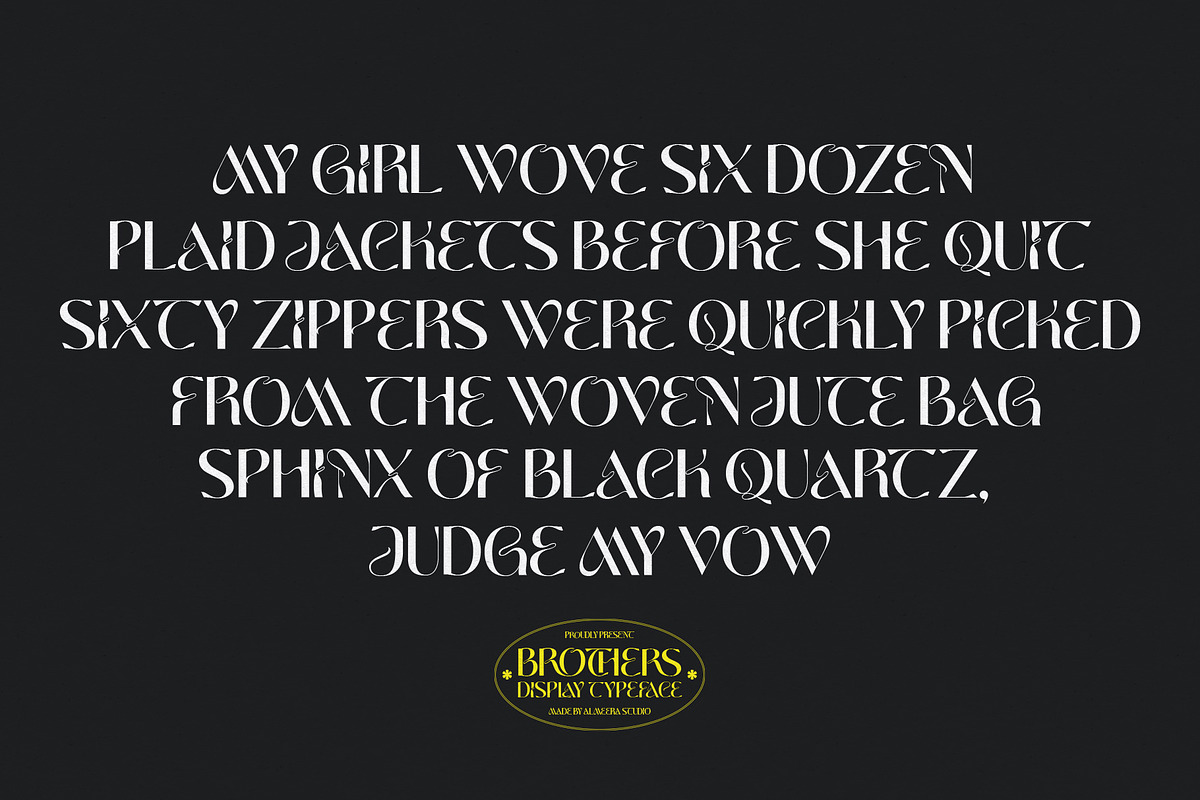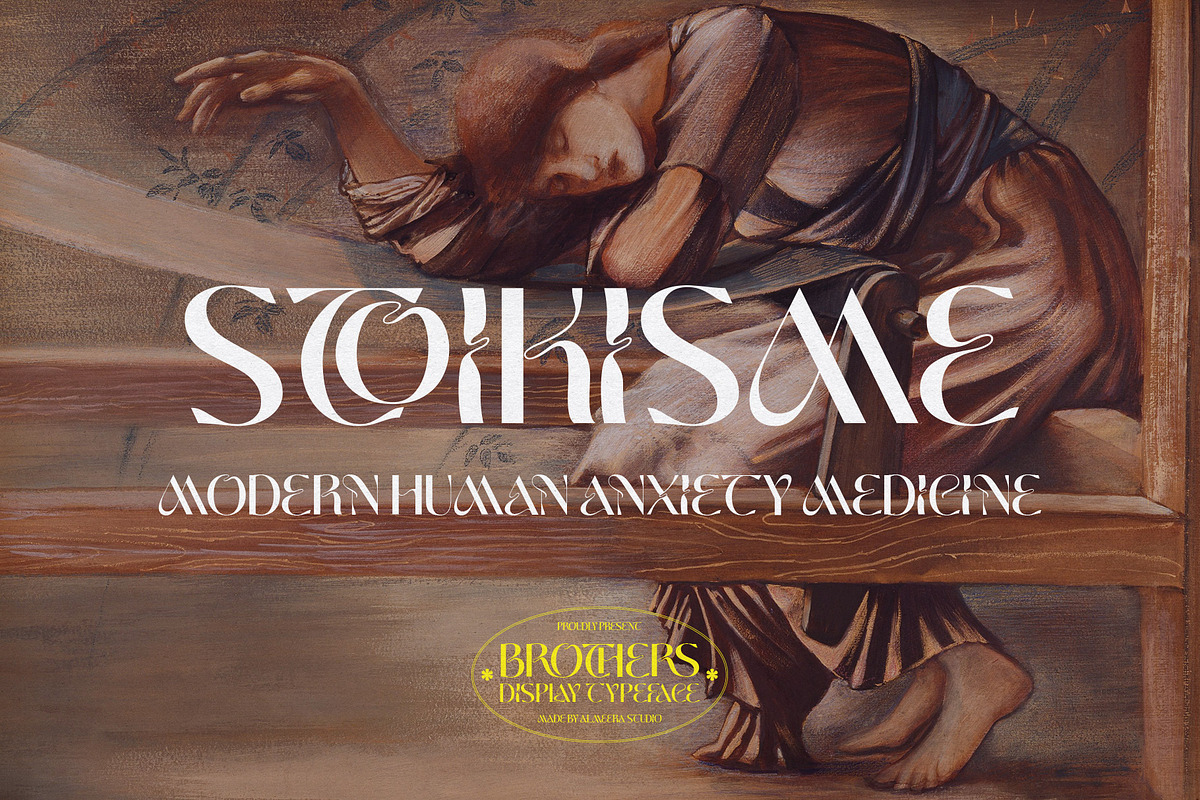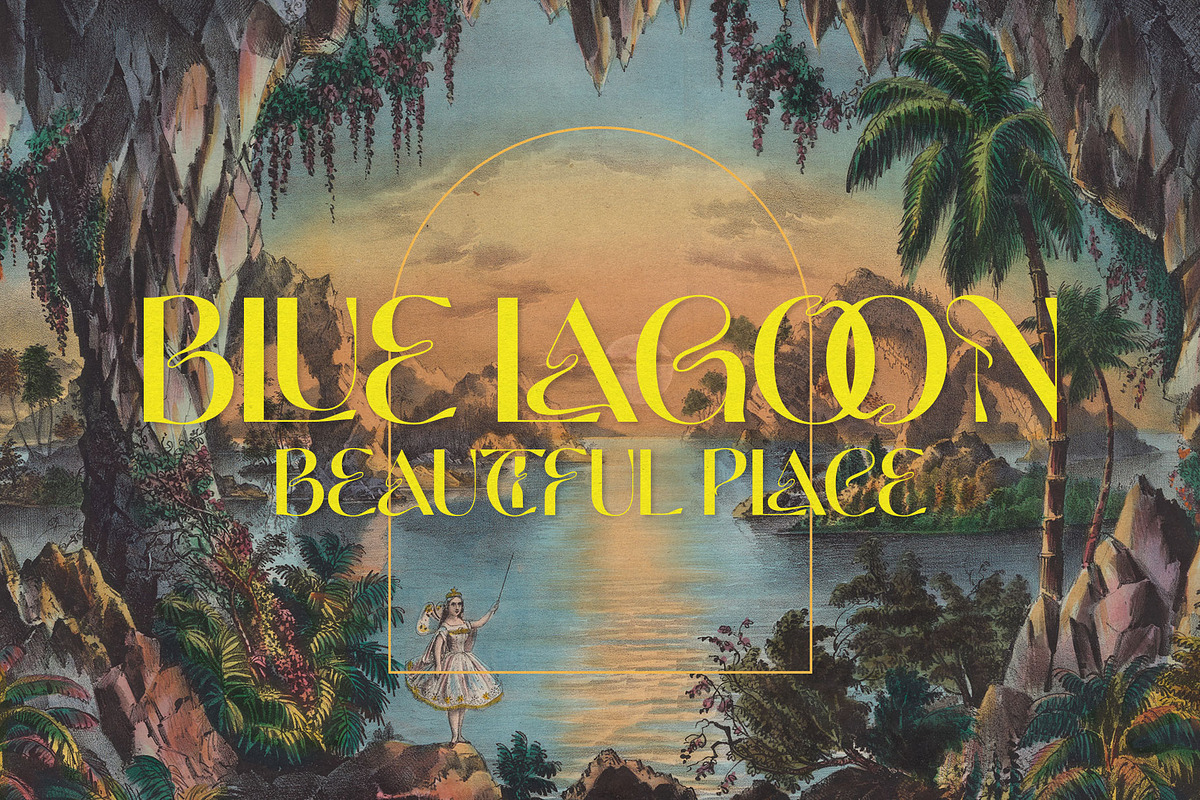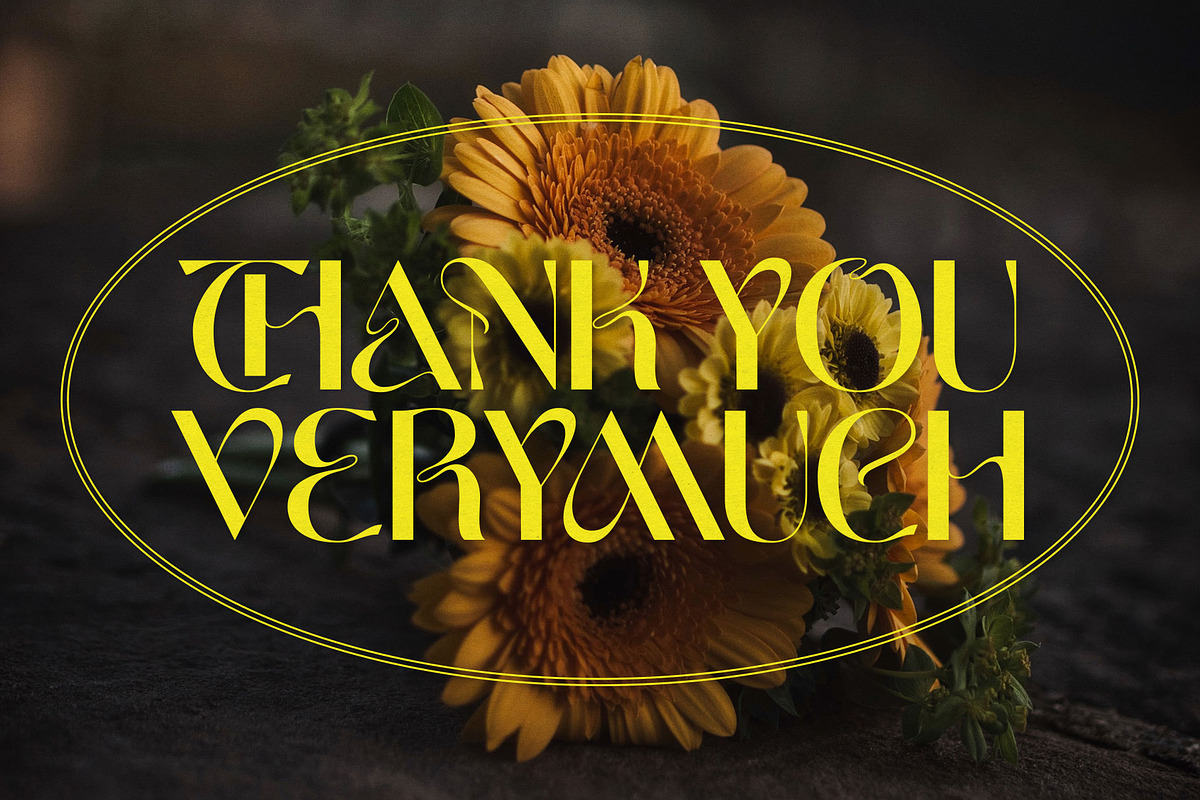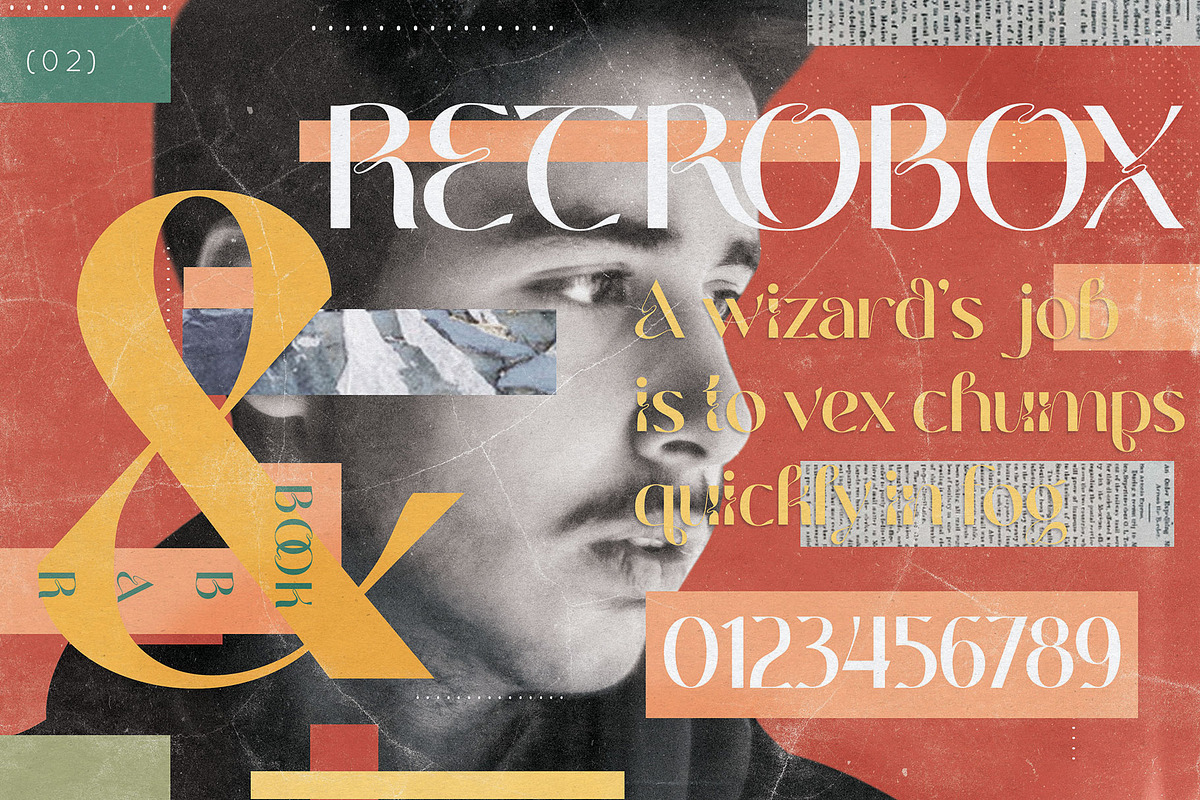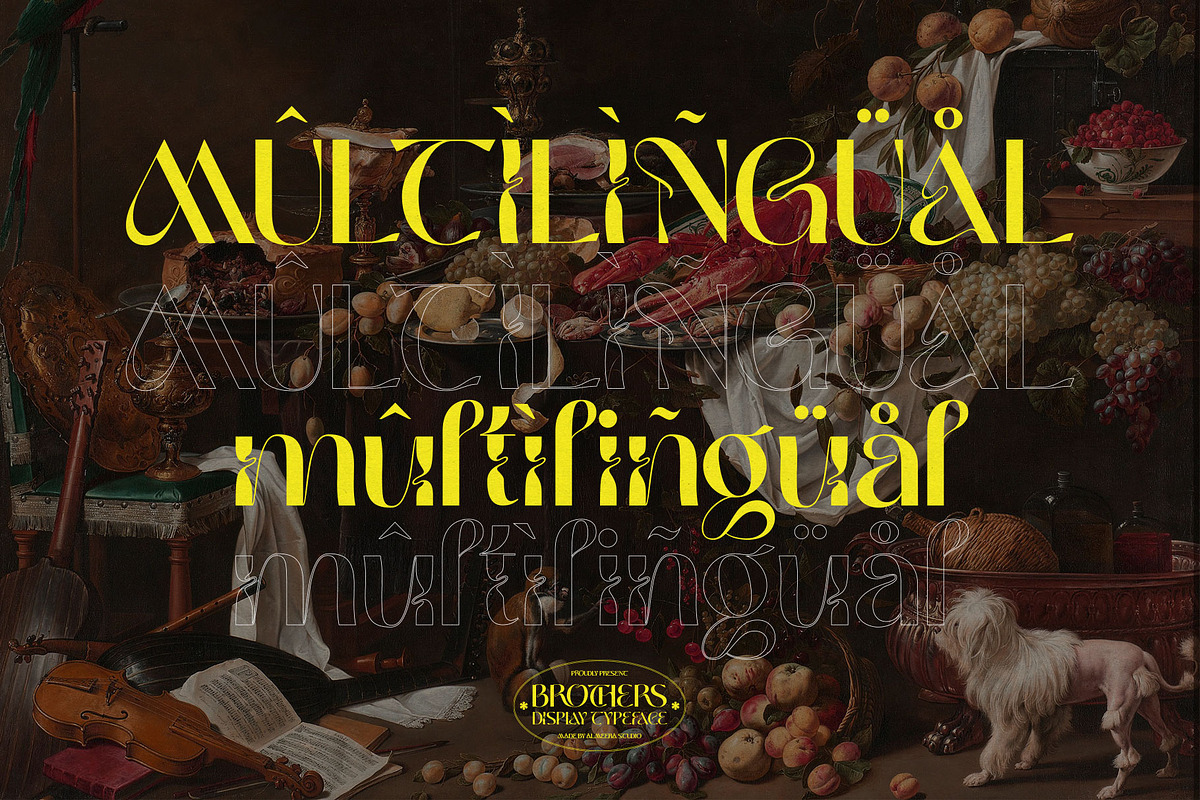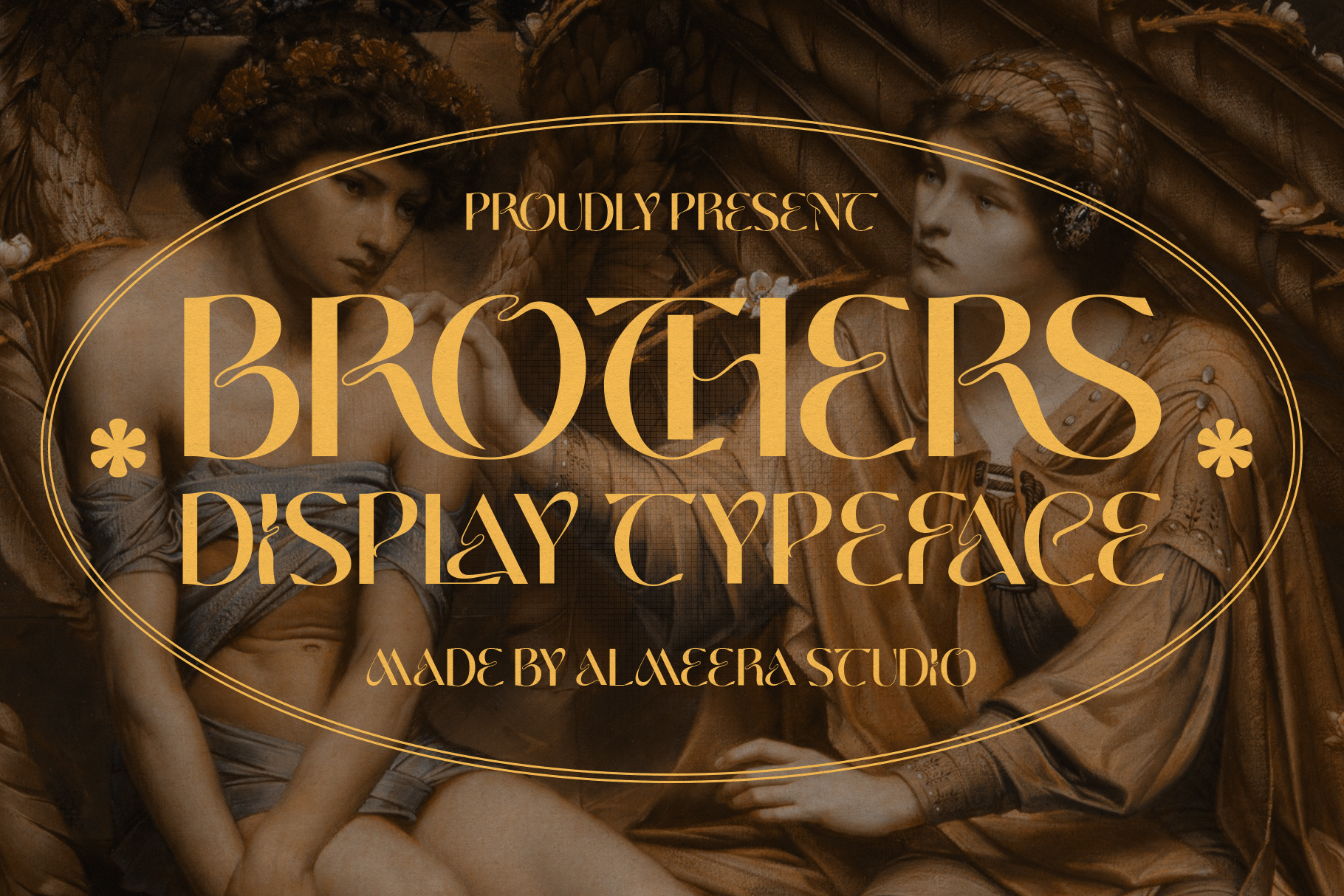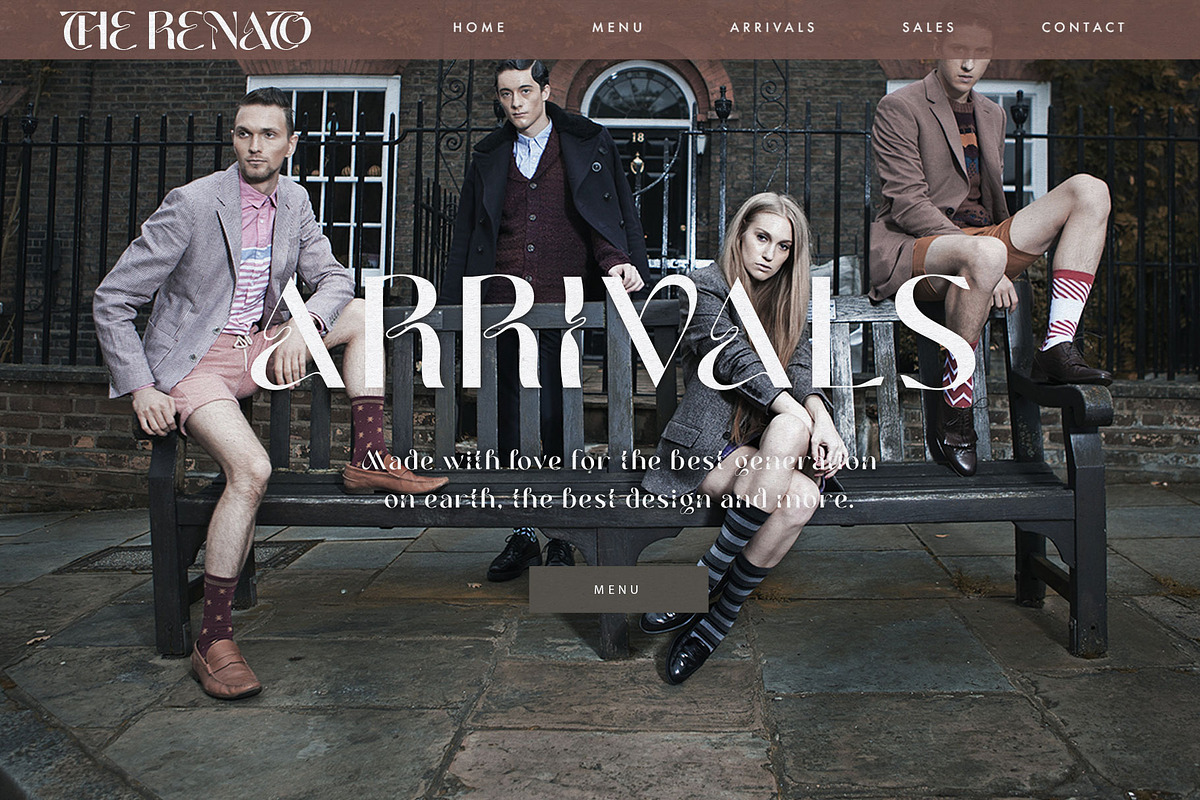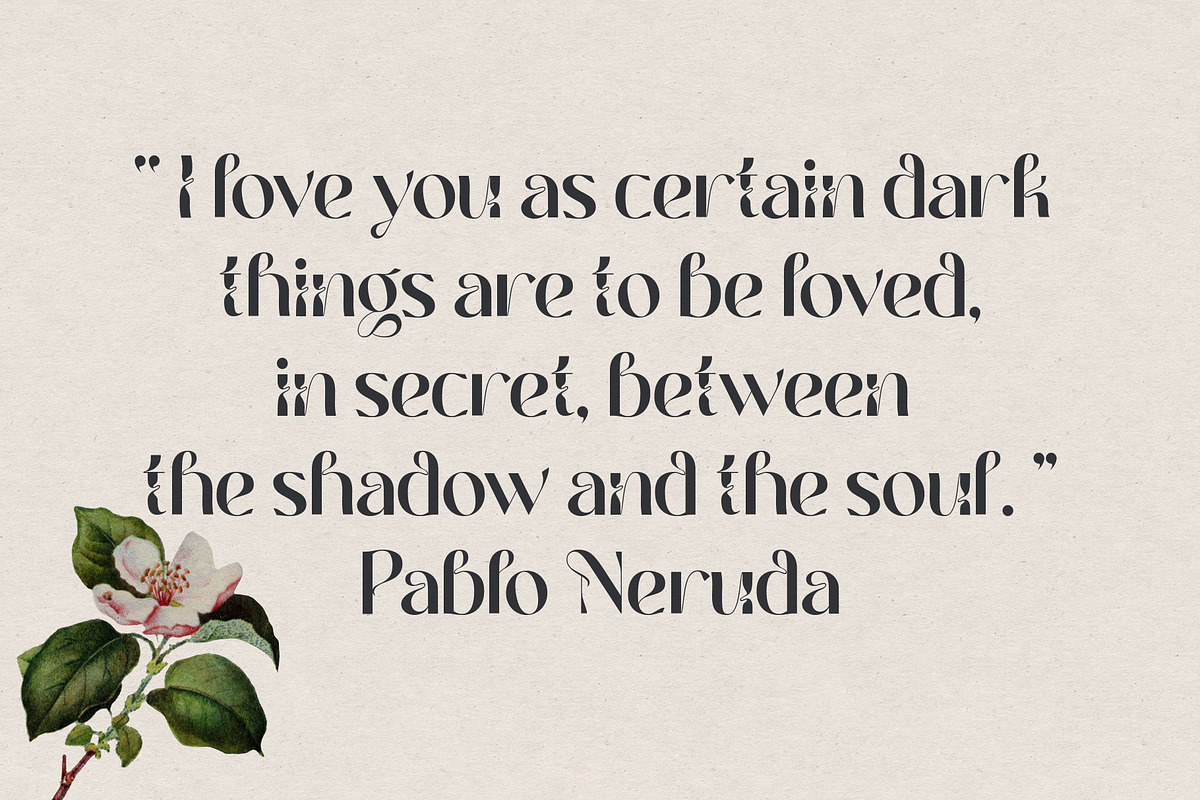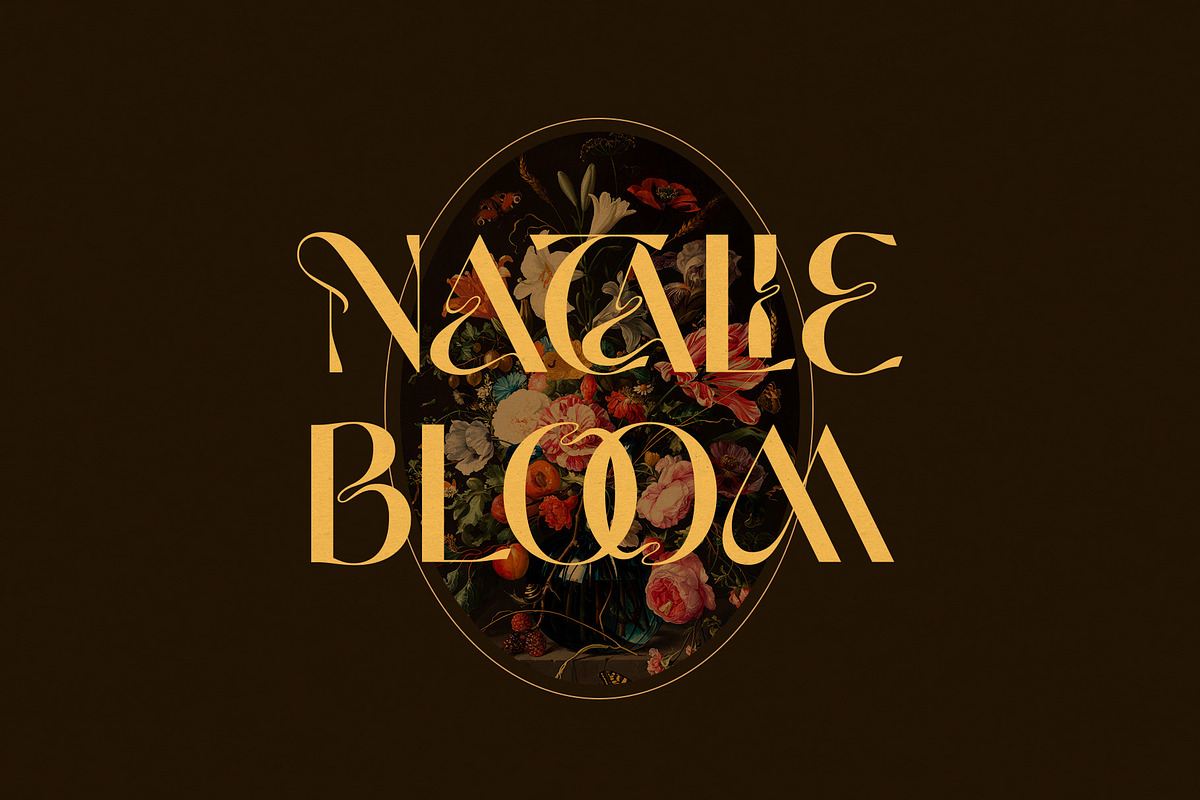
Brothers | DISPLAY TYPEFACE
Introducing the new Brothers Display Typeface!!! is a luxury and glamour display typeface, certainly not the kind of typeface you see everyday and Utterly unique. This font is both modern and nostalgic and works great for logos, magazine, social media ,etc. Already matched up and ready to be used together for your next design!